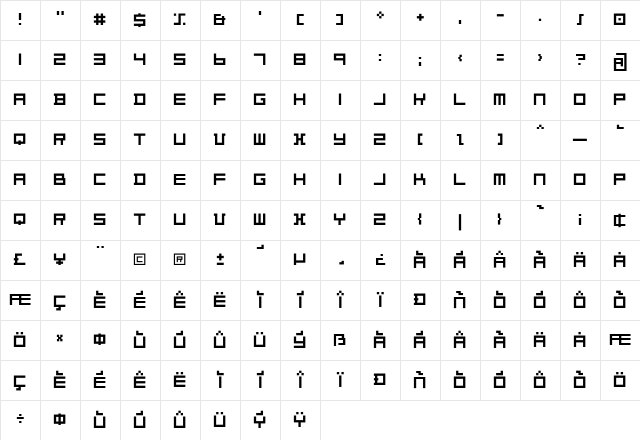
DeStijl is a composed and adaptable typeface that performs quietly and consistently across a wide range of design contexts.
Pro Tip: Use DeStijl in both headline and body roles to test its range before committing to a single application.